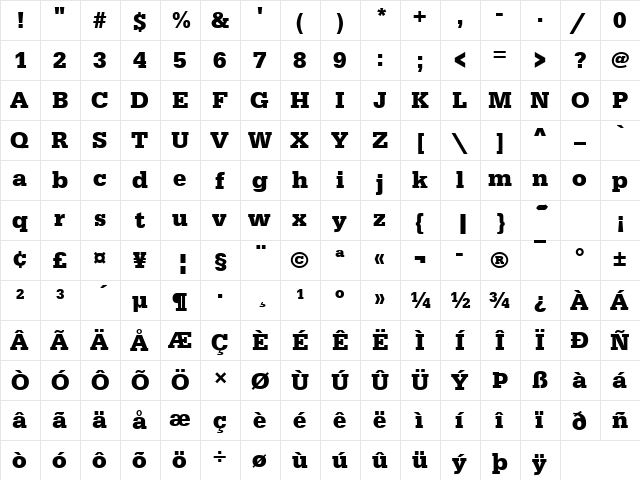
URWSarandibT Bold
Design Context for URWSarandibT Typeface
URWSarandibT offers clean, dependable letterforms without strong stylistic allegiance, making it a practical choice for designers who need flexibility. Its bold stroke weight gives it real presence on the page.
Pro Tip: Use URWSarandibT in both headline and body roles to test its range before committing to a single application.